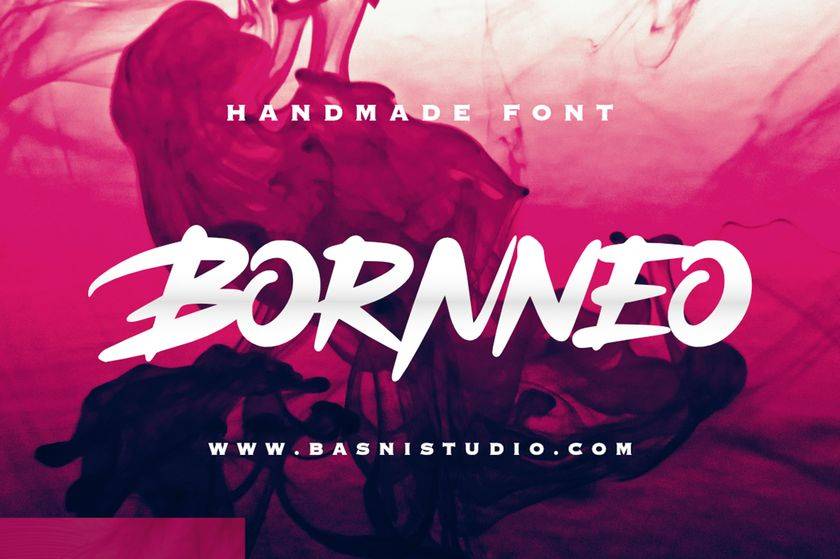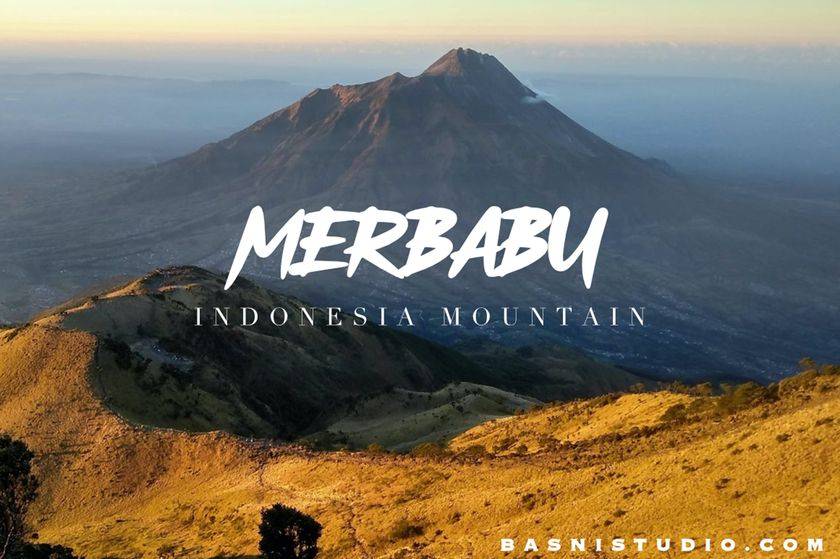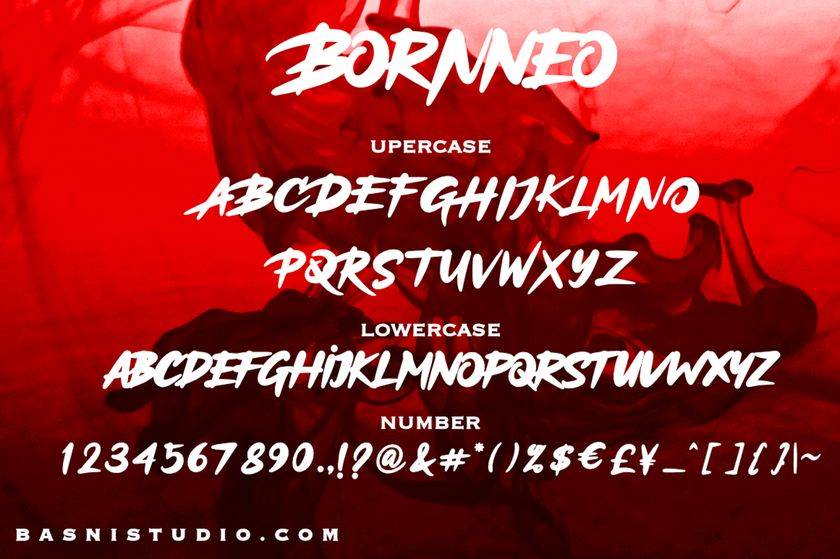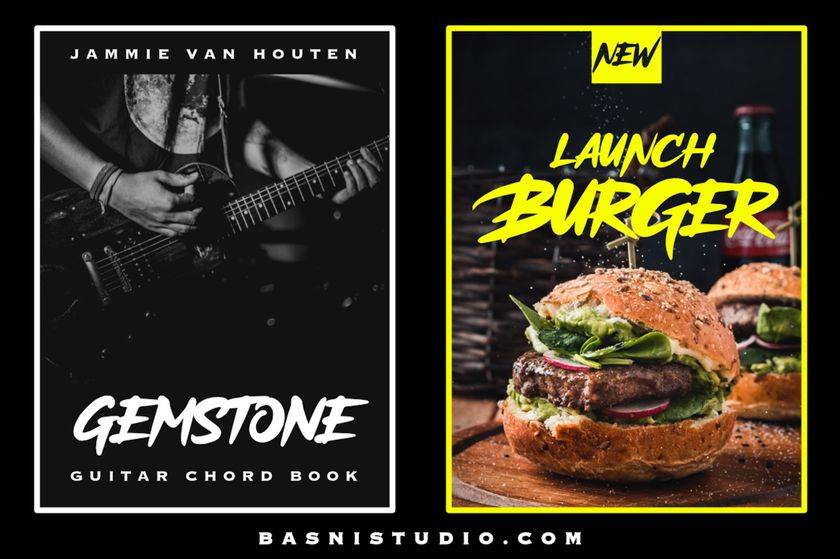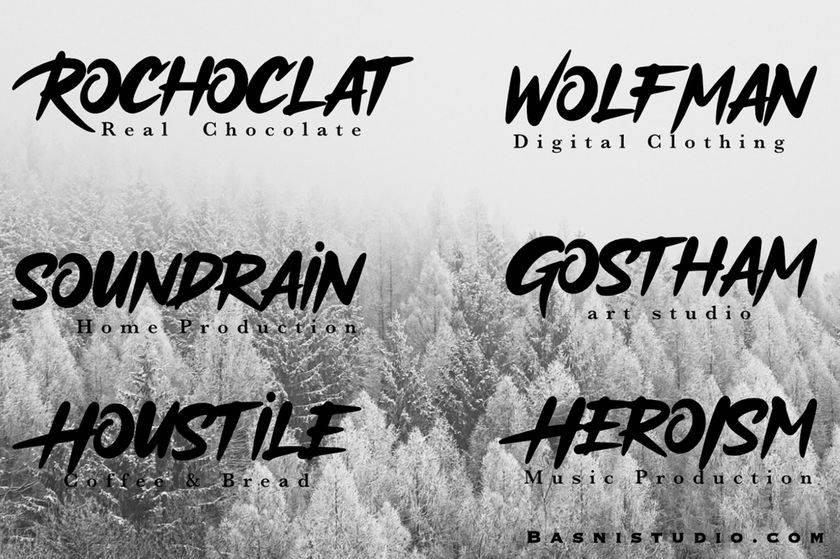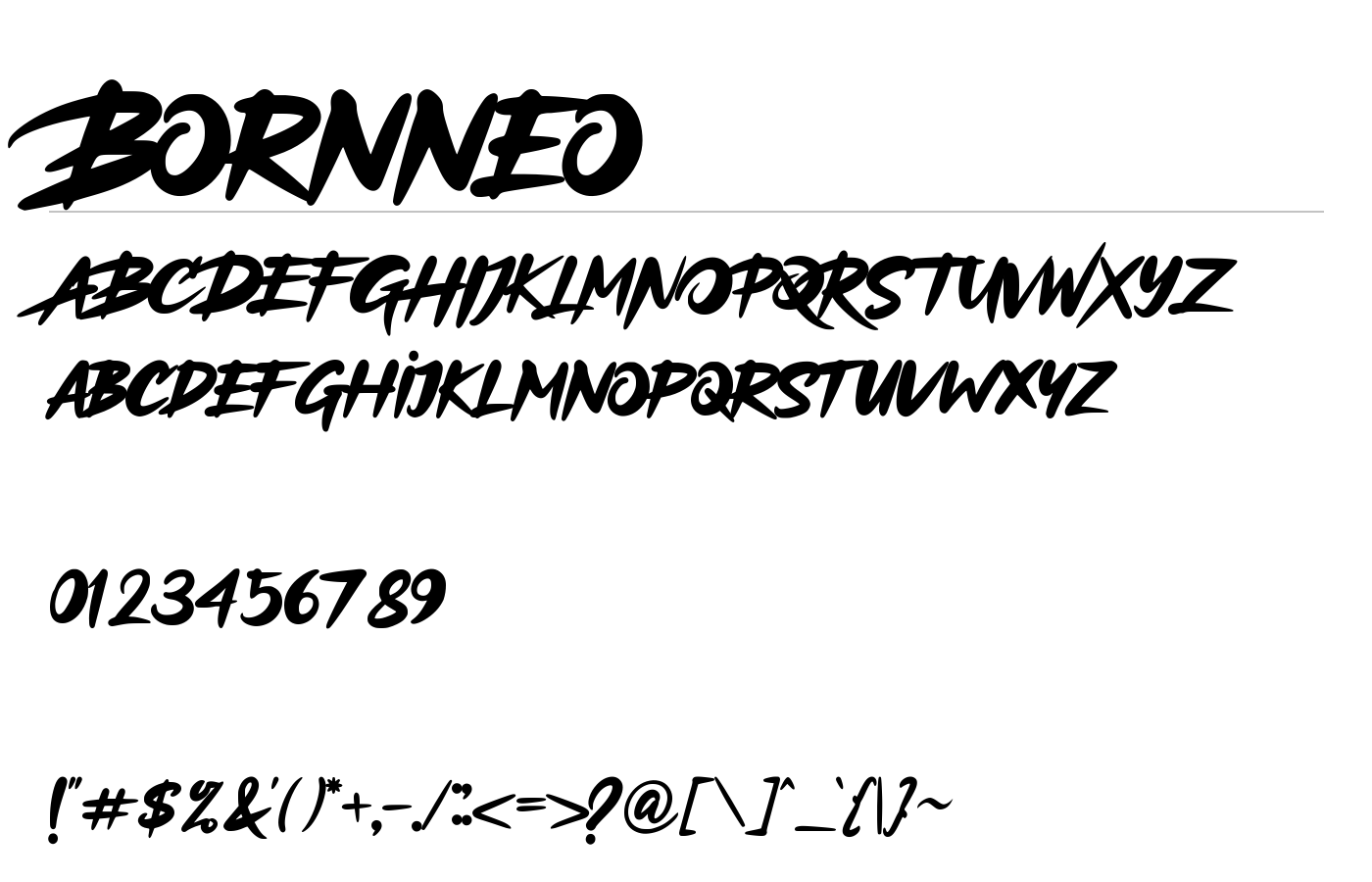
Bornneo is a bold, energetic script font with a hand-drawn, brush-style feel that conveys a sense of movement and creativity. Its lively strokes and casual letterforms make it an excellent choice for dynamic branding, posters, and any project seeking a stylish, youthful, and expressive look. This font works well for headlines or display use where personality and impact are key.
Bornneo Font